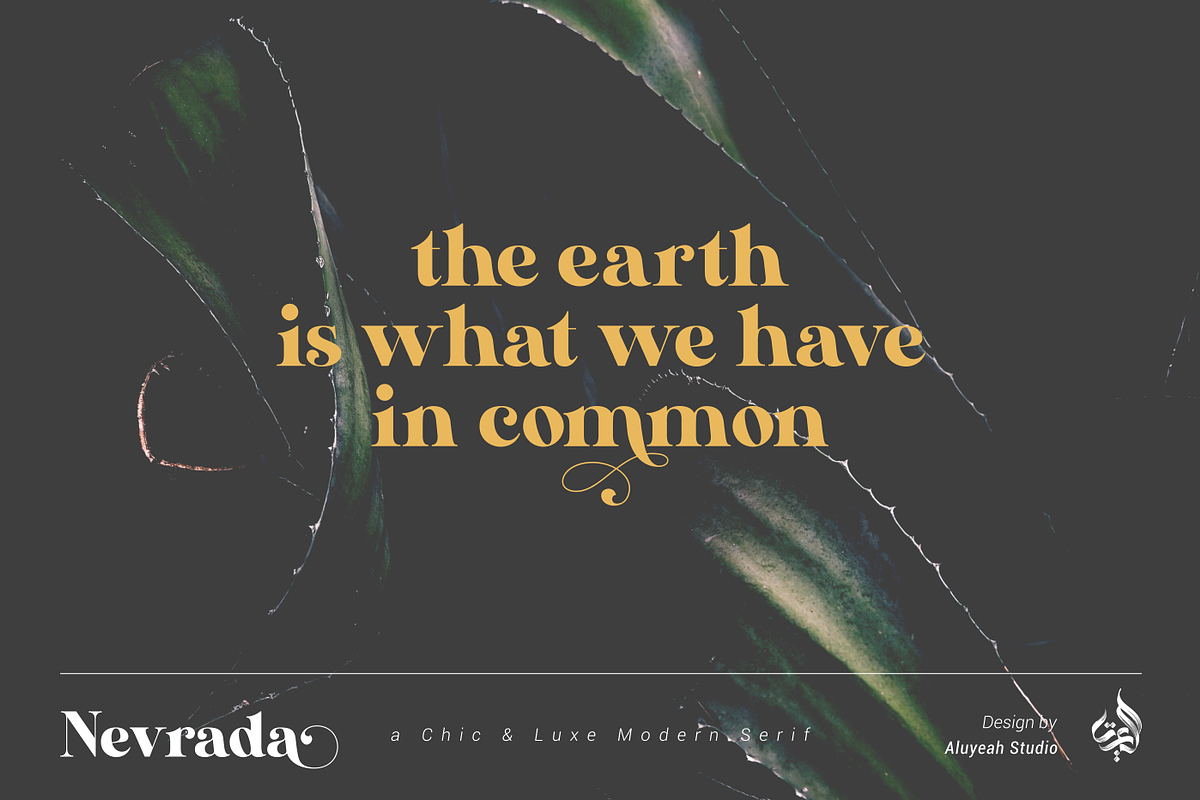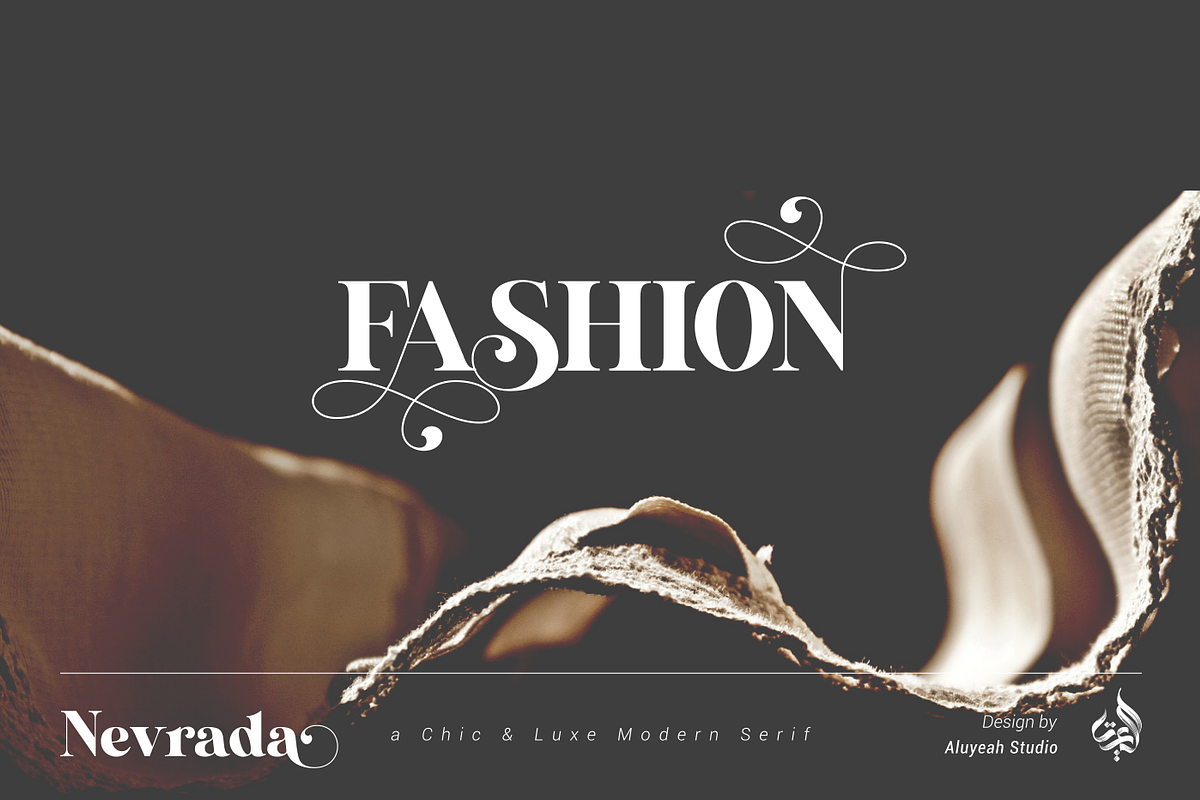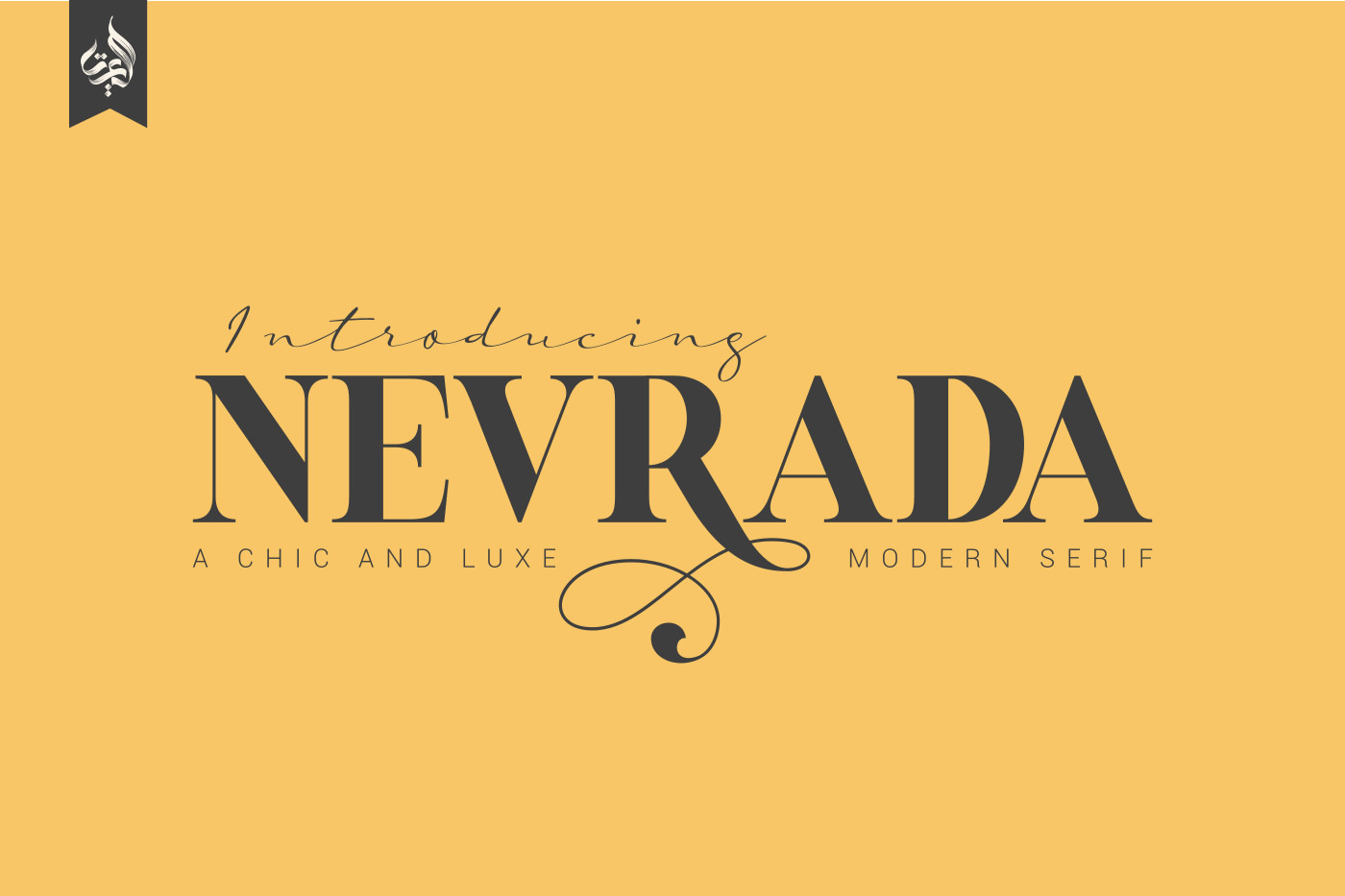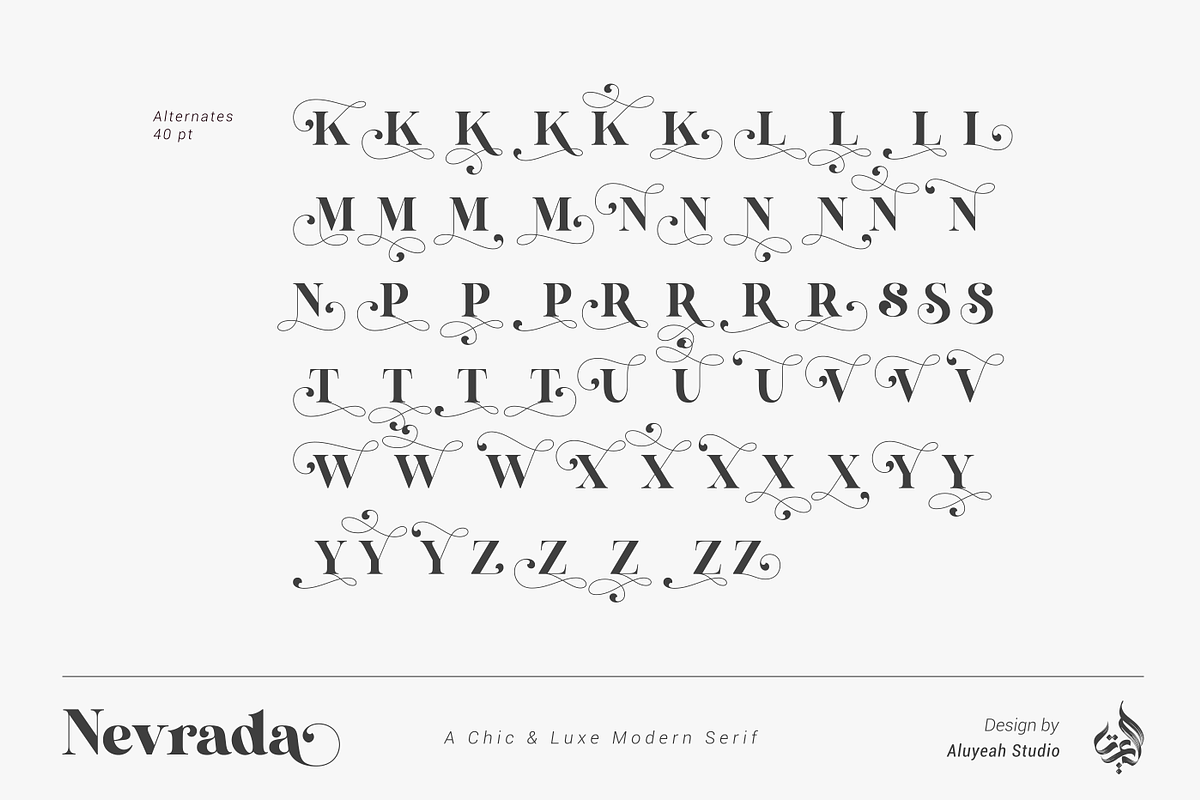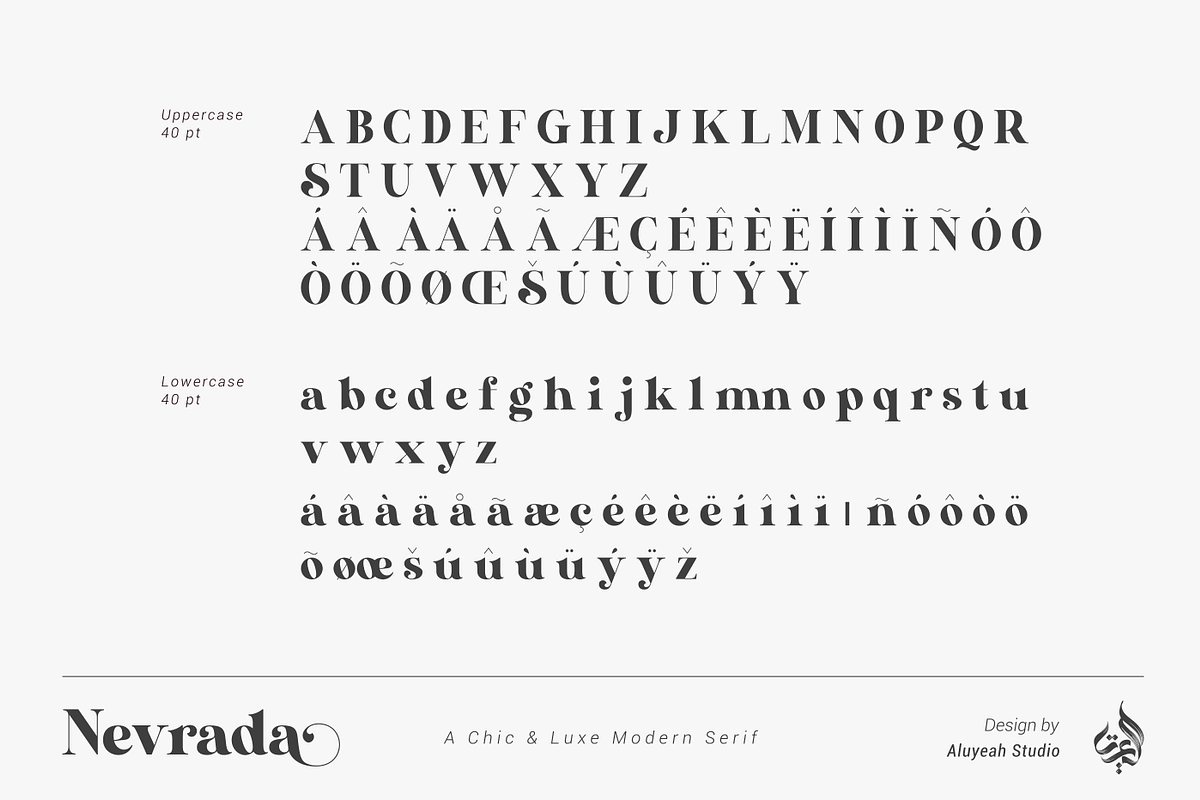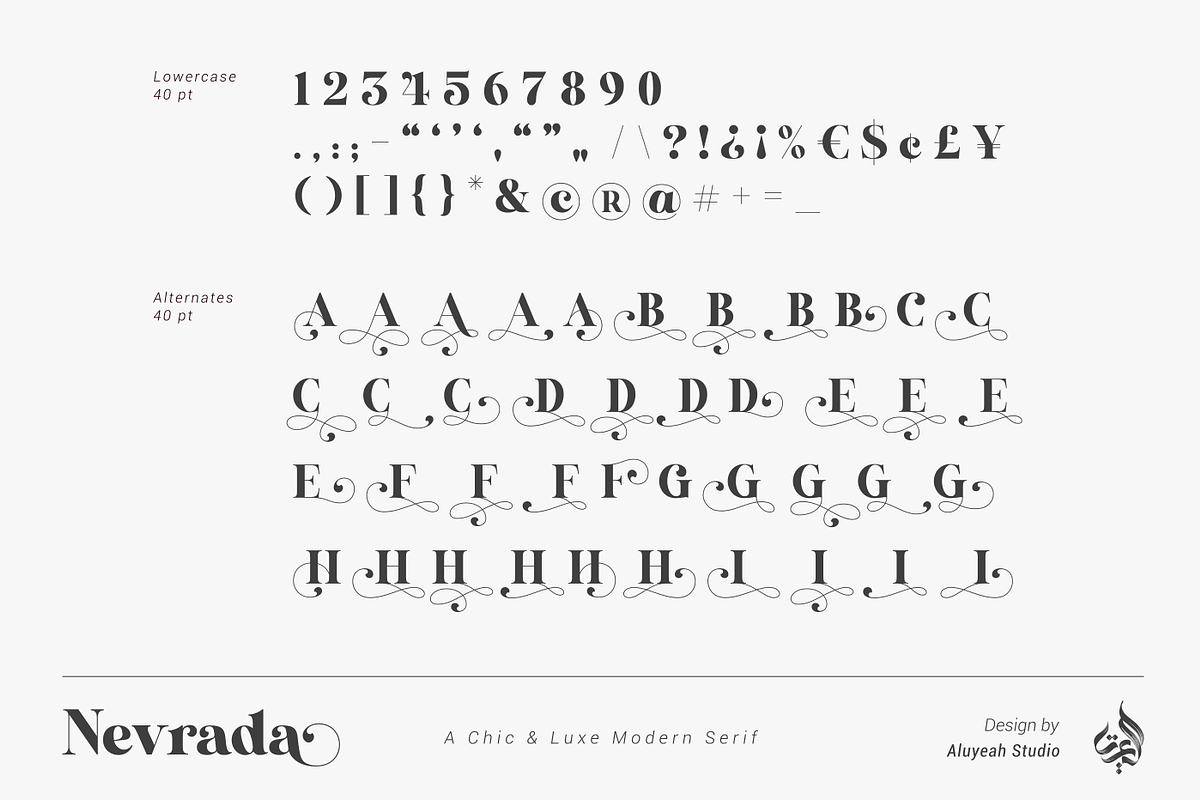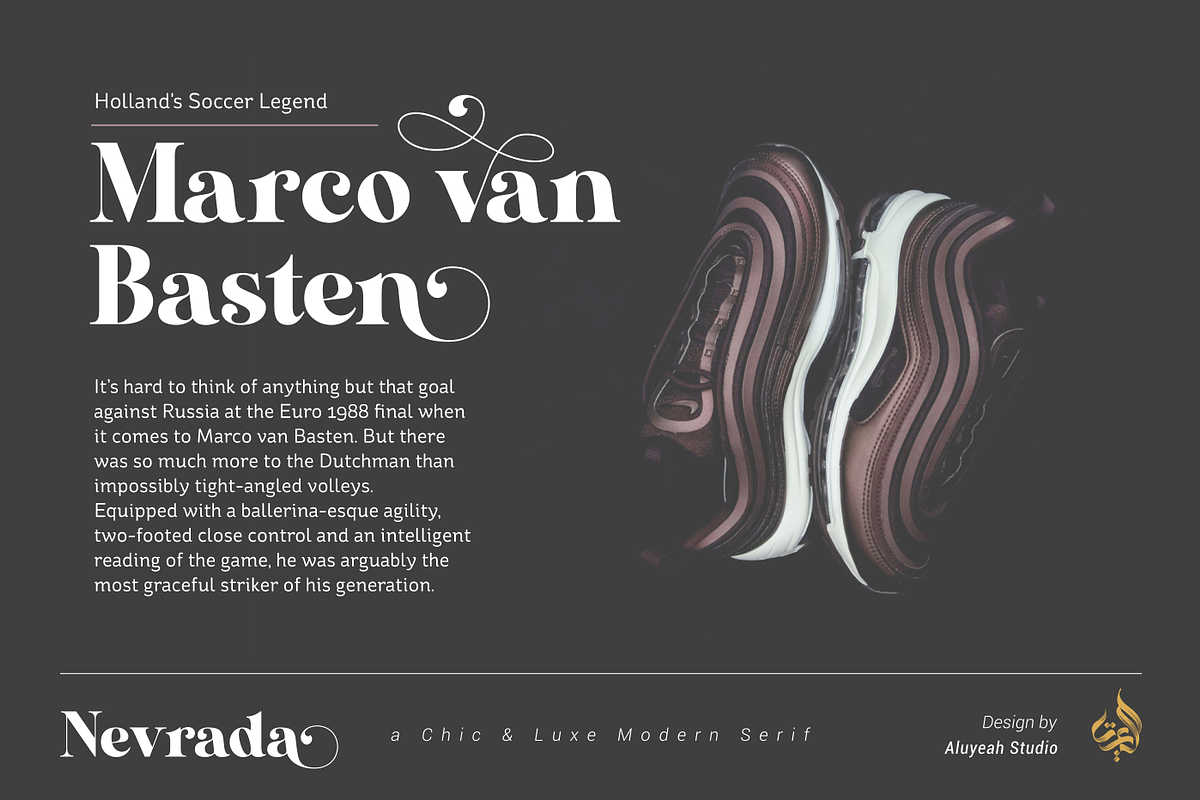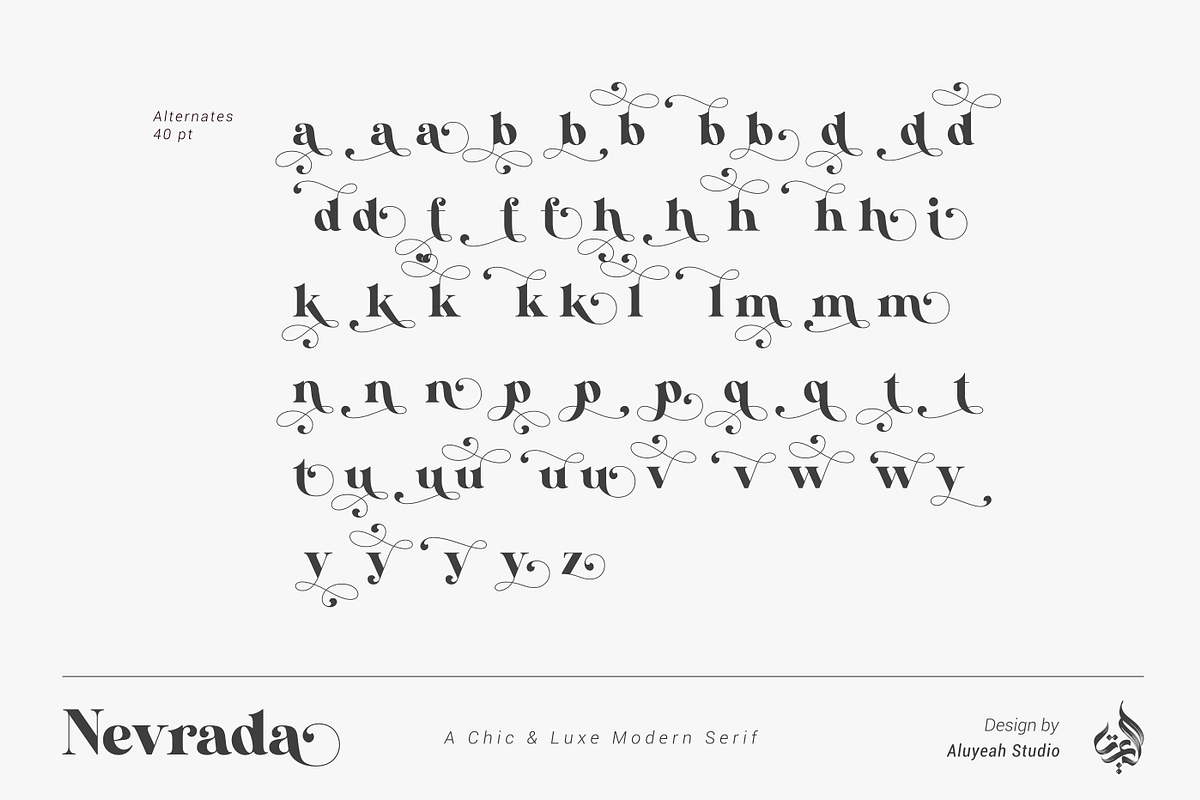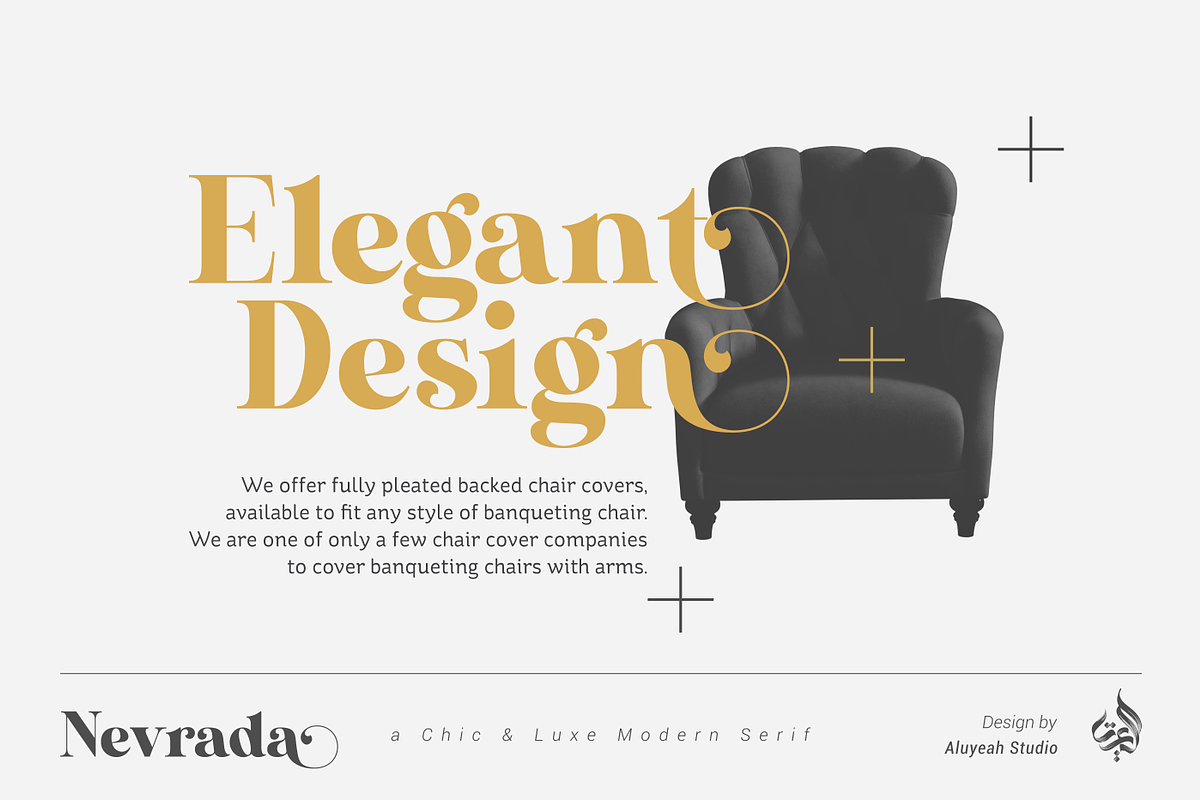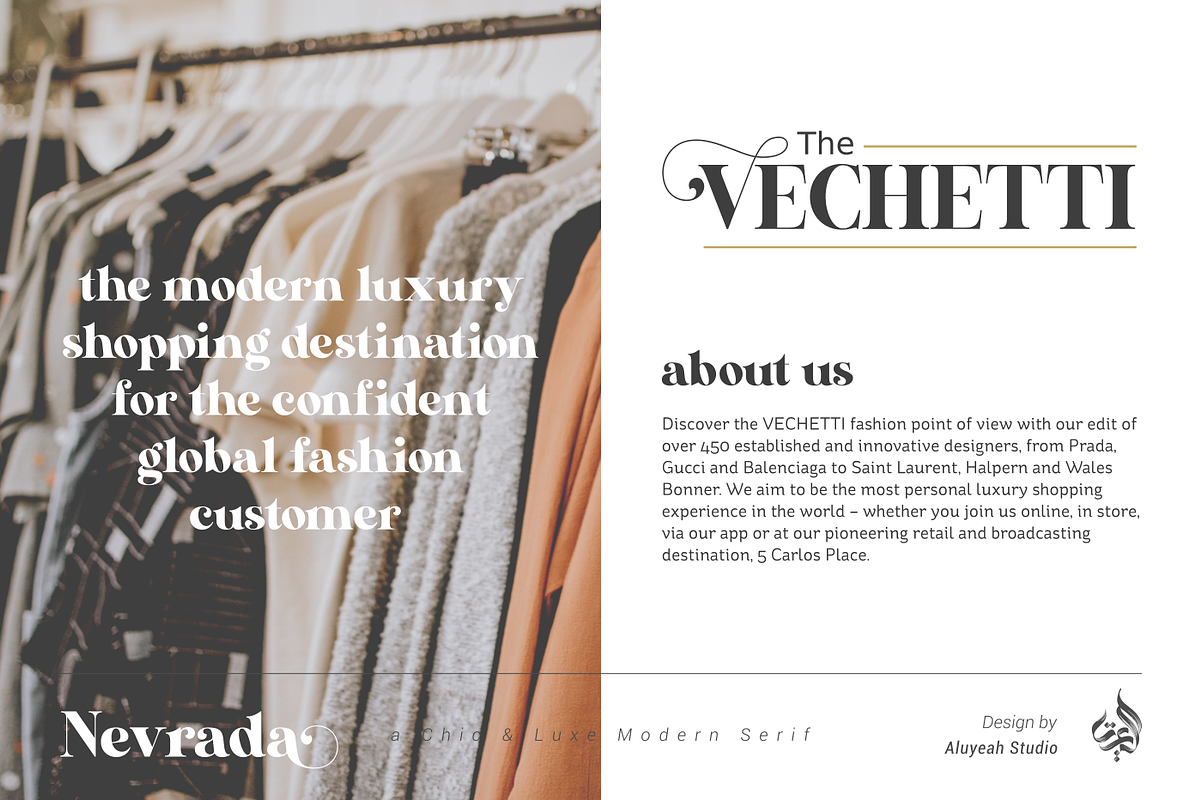
Nevrada Modern Display Font
Introducing Nevrada Modern Display Font. This is a display typeface with sharp serifs. If you want to stand out then this is the font for you. It’s a chic and luxurious serif font with a contemporary feel. Use it to add a bold flavor to any design! It’s ready and Perfectly fit for your logo designs, headline, fashion projects & social media posts, event poster, brand imagery, product packaging, quotes, merchandise, etc.
Coming to you with 150+ modern alternate – to create a perfectly beautiful, classy, chic, elegant, and luxurious design.
Use this font for your fashion brand, resort, cosmetics, invitations, wedding, branding, packaging, magazines, boutique, social media, restaurant, spa, greeting cards, headers, headline and many more.
- Super Easy to Use alternates – It’s OpenType support but you can easily call alternates character using special combination like A.2 d.2 k.3 etc so you don’t need special software. To get results like the preview just type NEVR.3ADA